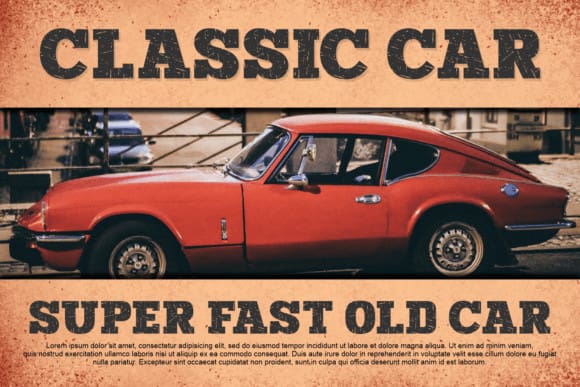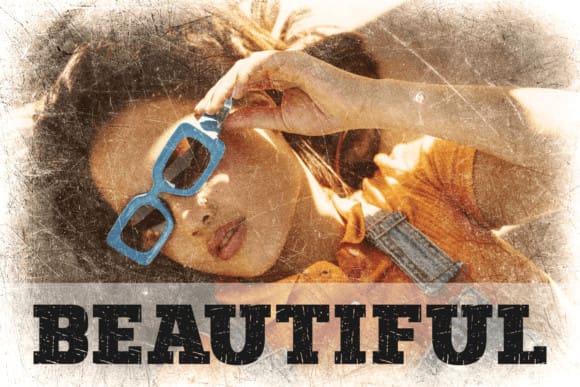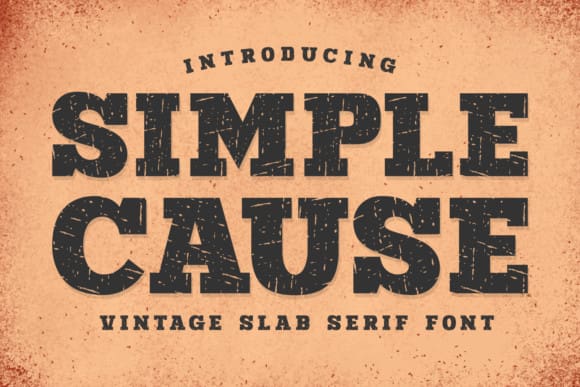
Simple Cause Font
Simple Cause Font is a vintage-style slab serif font. It features thick, blocky letters with serifs (small lines or strokes attached to the ends of the letters). This type of font has a classic and timeless look, making it great for creating an old-fashioned or retro feel in your designs.